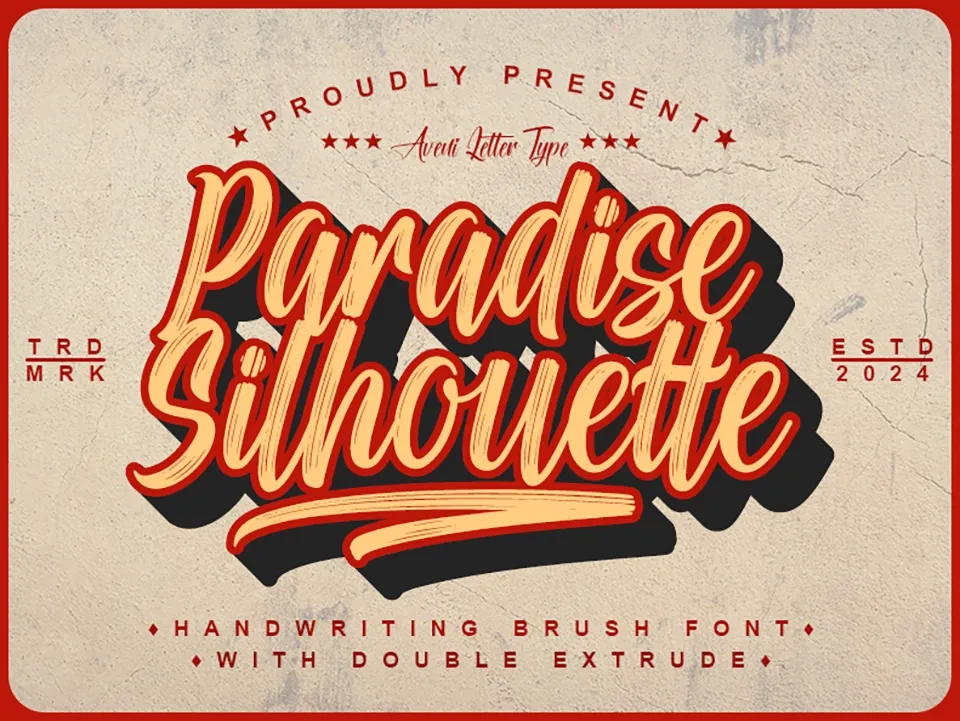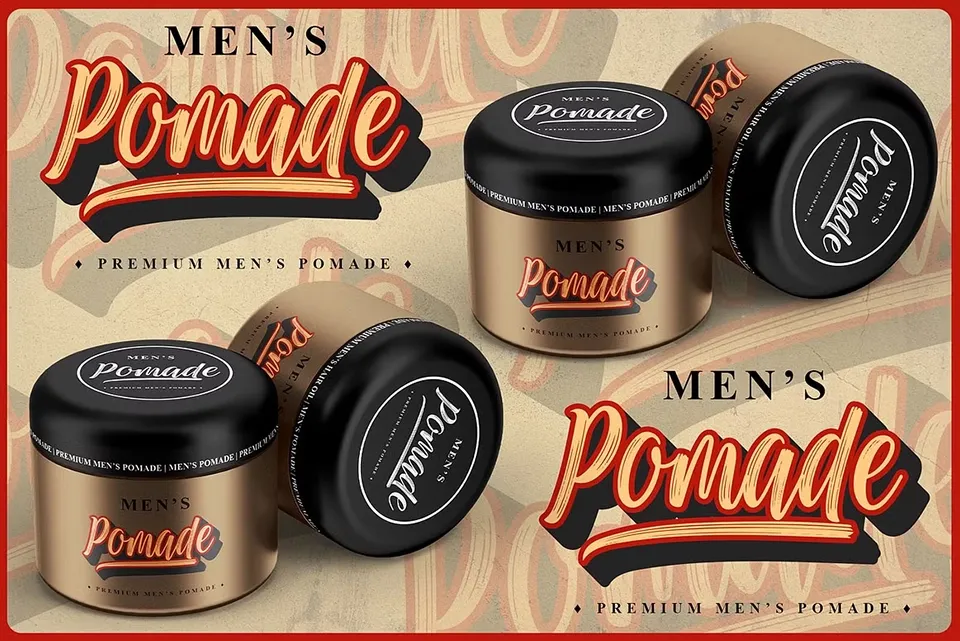
Paradise Silhouette Font
Paradise Silhouette Font is a handwriting brush font with a double extrude, giving it a unique 3D effect. This font, presented by Aveti Letter Type, is perfect for designs that need a vintage or retro feel. The bold, flowing script style captures attention, making it ideal for logos, posters, and eye-catching headlines. With its distinct silhouette and handcrafted look, Paradise Silhouette Font adds a touch of handcrafted authenticity to any project, ensuring your message stands out with style and character.